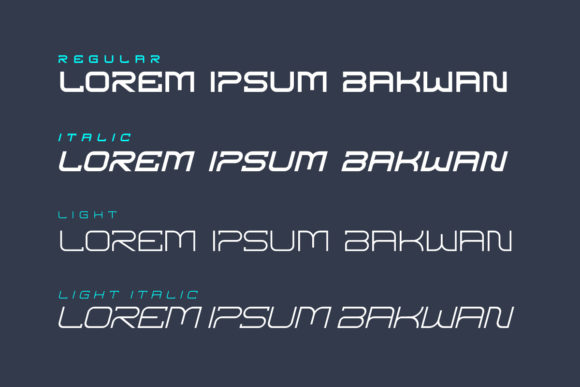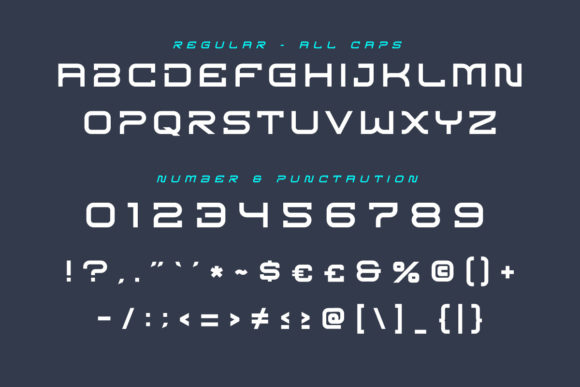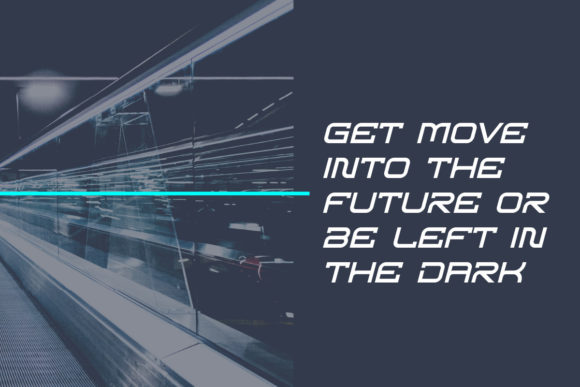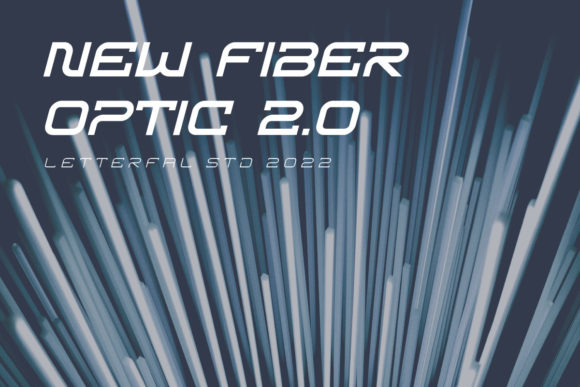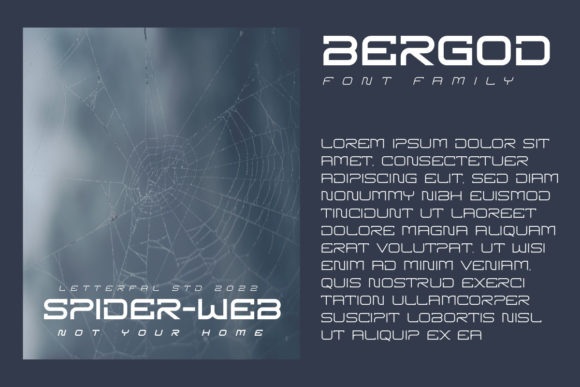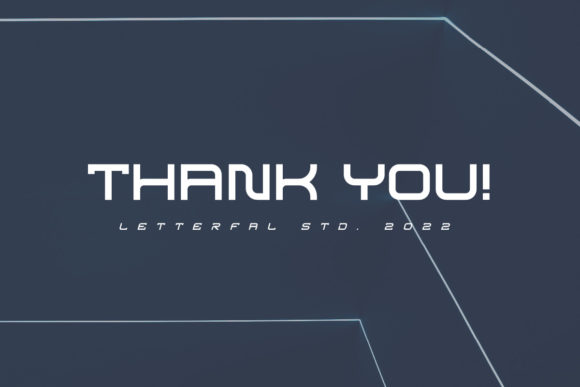
Bergod Sans Serif Font: A Modern and Futuristic Display Font
In the world of typography, a good font can make all the difference in the success of a design project. For designers and crafters looking for a bold and modern display font, Bergod Sans Serif Font is an excellent choice. With its futuristic edge and geometric corners, Bergod is perfect for technology-related projects and can be used for various purposes, including logotypes, posters, titles, and more.
What is Bergod Sans Serif Font?
Bergod is a sans-serif display font designed with a bold and modern aesthetic in mind. Its clean lines, geometric corners, and futuristic edge make it an ideal choice for designers looking to add a touch of sophistication and innovation to their projects. The font’s sleek design ensures that it stands out from the crowd, making it perfect for headlines, titles, and logotypes.
Key Features of Bergod Sans Serif Font
- Bold and Modern Design: Bergod has a bold and modern look that is sure to grab attention.
- Futuristic Edge: The font’s futuristic edge gives it a unique and innovative feel.
- Geometric Corners: The geometric corners add a touch of sophistication and elegance to the font.
- Versatile: Bergod can be used for various purposes, including logotypes, posters, titles, and more.
- Perfect for Technology: The font’s futuristic design makes it perfect for technology-related projects.
Use Cases for Bergod Sans Serif Font
Bergod Sans Serif Font can be used for a wide range of design projects, including:
- Logotypes: The font’s bold and modern design makes it perfect for creating logotypes that stand out.
- Posters: Bergod can be used to create eye-catching posters that grab attention.
- Titles: The font’s clean lines and geometric corners make it ideal for titles and headlines.
- Technology-related Projects: Bergod’s futuristic design makes it perfect for technology-related projects, such as software applications, websites, and more.
Why Choose Bergod Sans Serif Font?
There are many reasons why designers and crafters should choose Bergod Sans Serif Font for their projects. Here are a few:
- Unique Design: Bergod has a unique and innovative design that sets it apart from other fonts.
- High-quality: The font is designed with high-quality in mind, ensuring that it looks great in any project.
- Easy to Read: Despite its bold design, Bergod is easy to read, making it perfect for titles and headlines.
- Versatile: The font can be used for a wide range of design projects, making it a great addition to any designer’s toolkit.
Tips for Using Bergod Sans Serif Font
Here are a few tips for using Bergod Sans Serif Font in your design projects:
- Use it for Headlines: Bergod is perfect for headlines and titles, so use it to grab attention.
- Pair it with Other Fonts: Bergod can be paired with other fonts to create a unique and interesting design.
- Experiment with Colors: The font looks great in a variety of colors, so experiment to find the perfect color scheme.
- Use it for Logotypes: Bergod’s bold and modern design makes it perfect for creating logotypes that stand out.
In conclusion, Bergod Sans Serif Font is a bold and modern display font that is perfect for designers and crafters looking to add a touch of sophistication and innovation to their projects. With its futuristic edge and geometric corners, Bergod is ideal for technology-related projects and can be used for a wide range of design projects, including logotypes, posters, titles, and more. Its unique design, high-quality, and versatility make it a great addition to any designer’s toolkit.